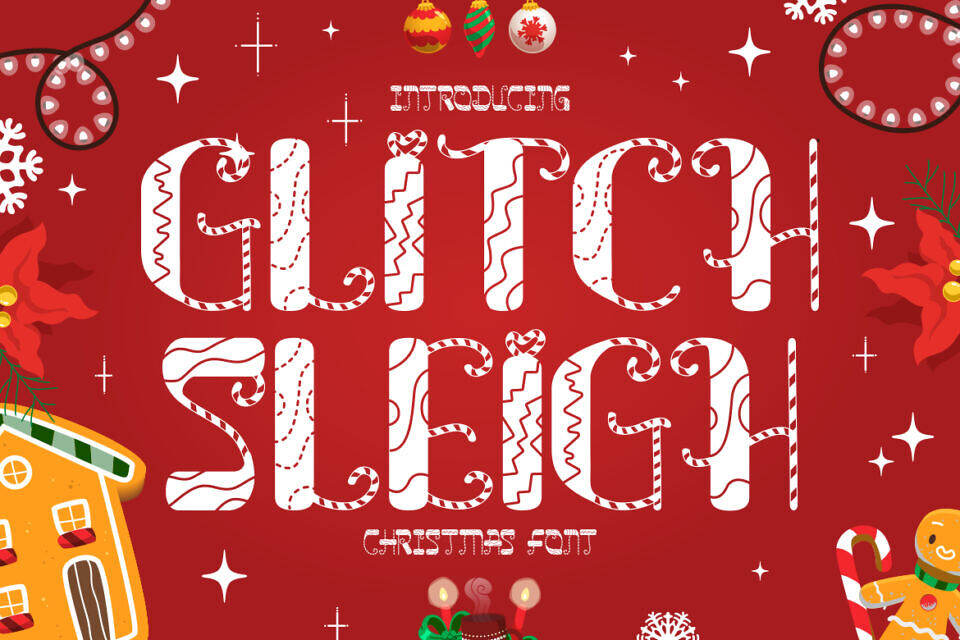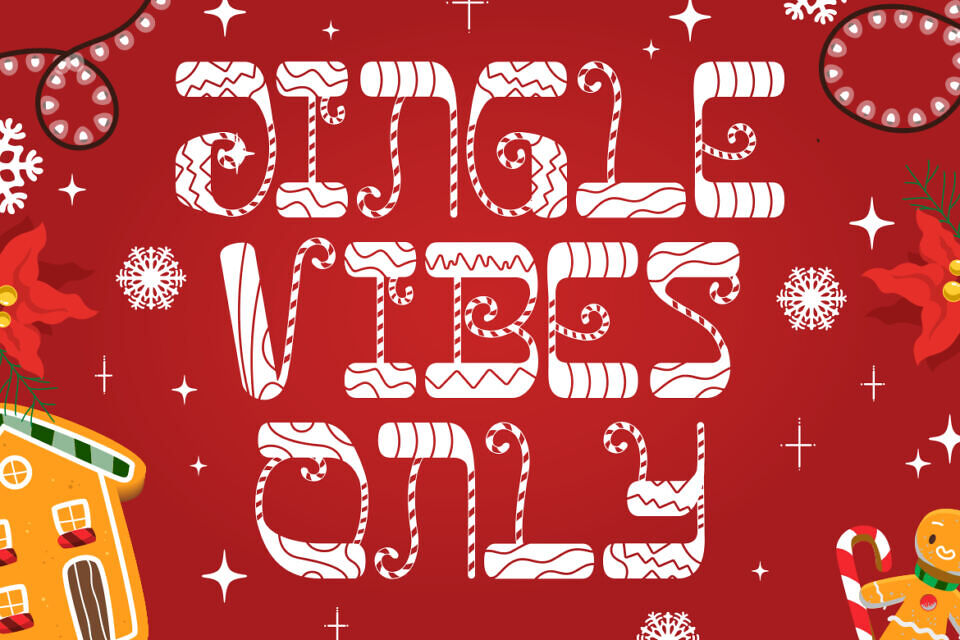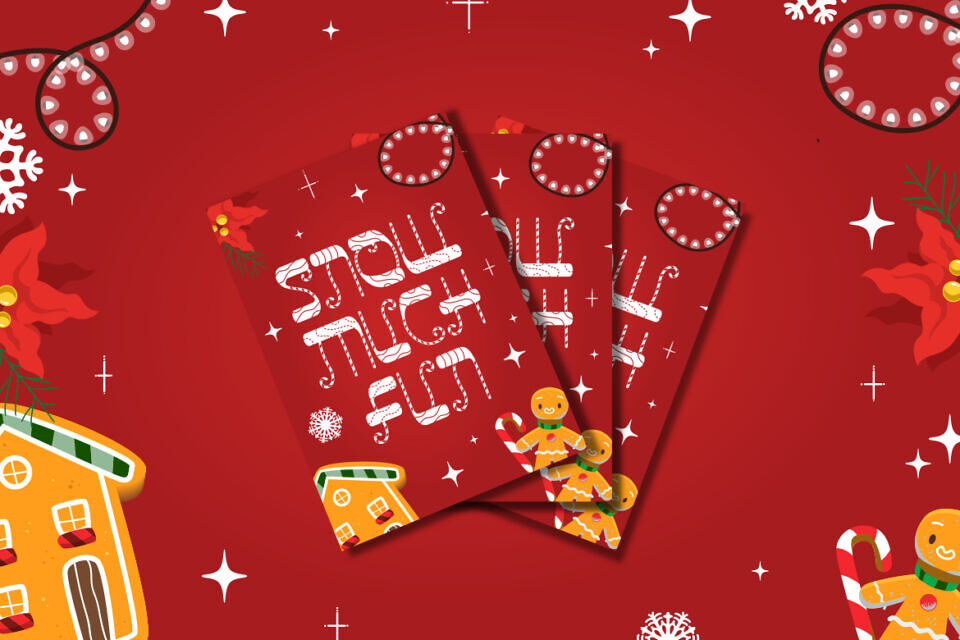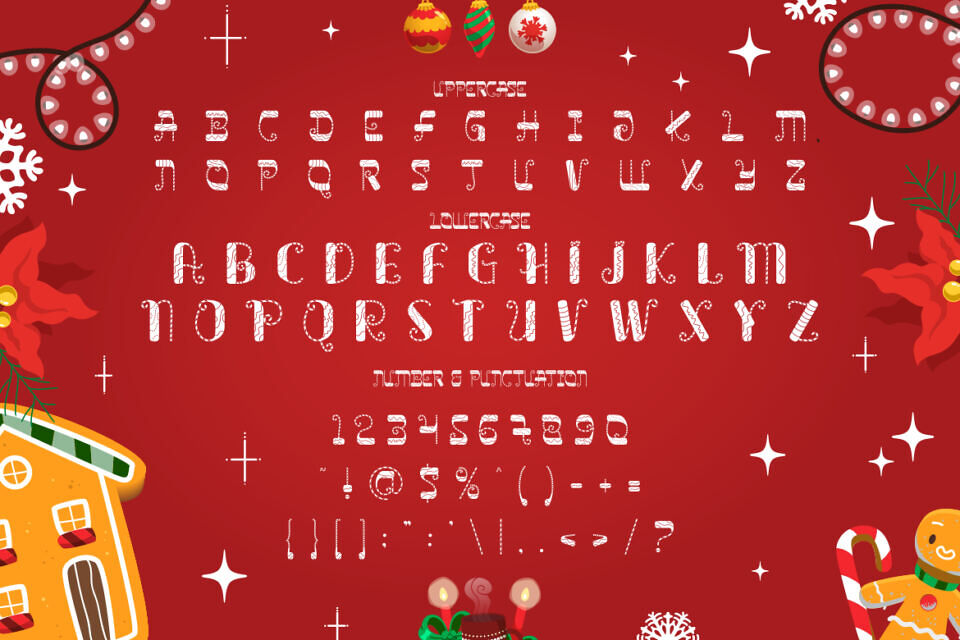
Glitch Sleigh is a delightful and quirky Christmas font that captures the essence of holiday cheer. Every letter is uniquely decorated with candy-cane swirls, stitched frosting lines, and playful festive textures, creating a whimsical and handcrafted appearance.
The font integrates decorative motifs like peppermint curves, icing squiggles, and snowy outlines that feel straight from a Christmas bakery. Perfectly balanced and readable despite its joyful complexity, Glitch Sleigh brings a sense of warmth and fun to any layout.
This font is ideal for a wide array of festive applications. From holiday packaging and greeting cards to Christmas posters, party invitations, and seasonal branding, Glitch Sleigh delivers charm and visual impact.